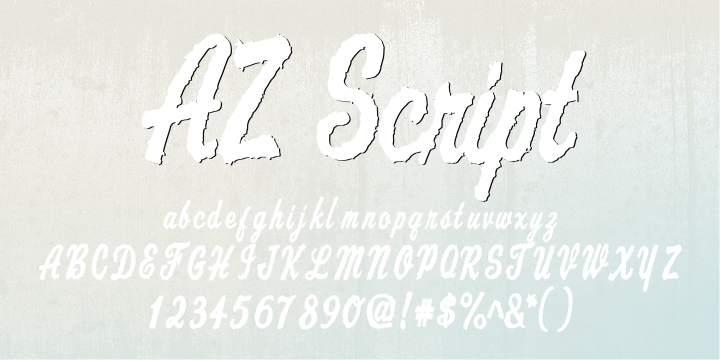
AZ Script Free Download
Please note, you must purchase this font for commercial use. You can download AZ Script Font Free Download for testing purposes and explore its elegant, handwritten design. AZ Script Font is perfect for creative projects, invitations, branding, and any design that requires a personal, stylish, and artistic touch.
With its flowing curves and smooth, calligraphic style, AZ Script Font brings a sense of grace and sophistication to your designs. It’s ideal for projects that need to convey elegance, romance, and a refined, handwritten aesthetic, making it perfect for wedding invitations, logos, greeting cards, and other creative endeavors.
AZ Script Font Free Download supports multilingual characters, making it suitable for global projects. Its legible and artistic design ensures readability while maintaining a distinctive, elegant flair.